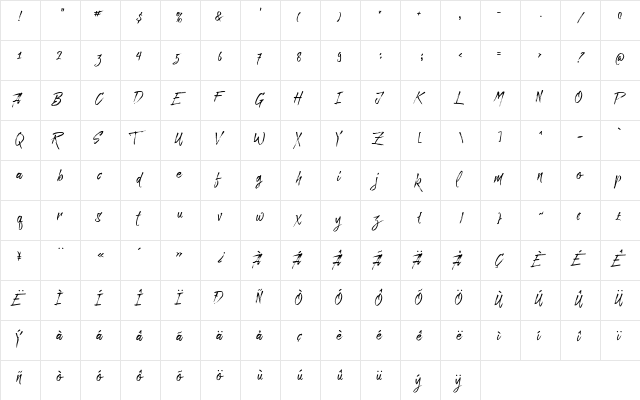
Paradise Typeface Free Demo Regular
Design Context for Paradise Typeface Free Demo Typeface
Paradise Typeface Free Demo is a composed and adaptable typeface that performs quietly and consistently across a wide range of design contexts.